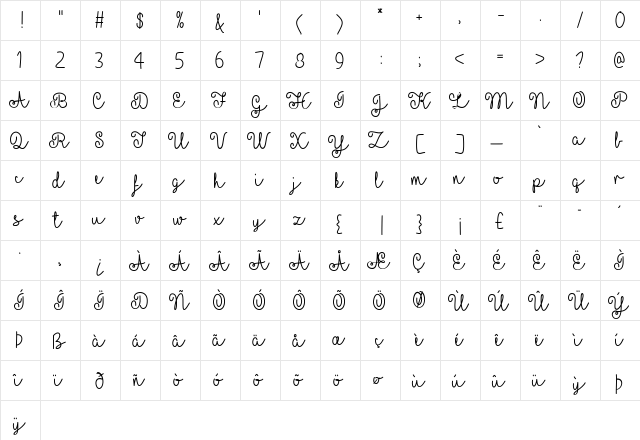
Yellow Butterflies Regular
Design Context for Yellow Butterflies Typeface
Yellow Butterflies is a composed and adaptable typeface that performs quietly and consistently across a wide range of design contexts.